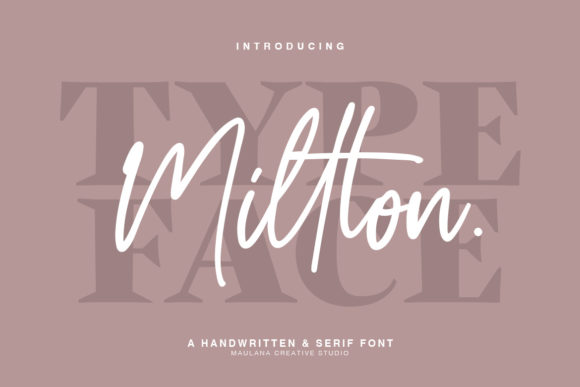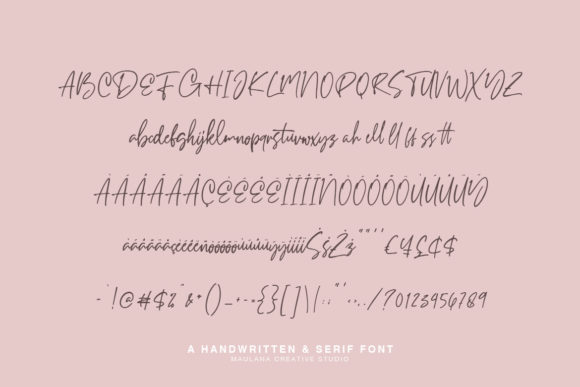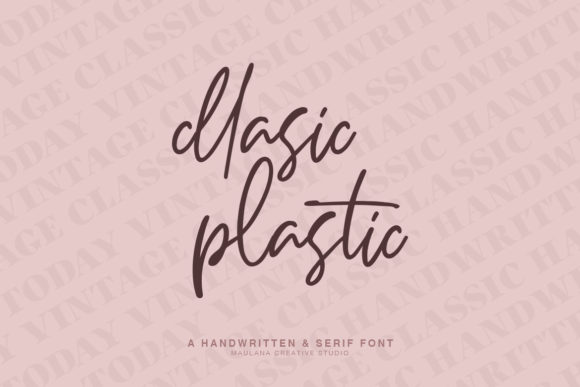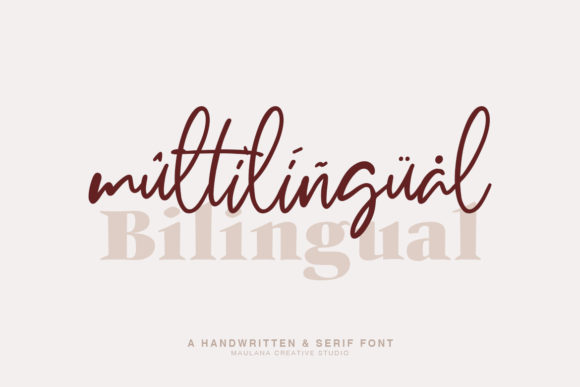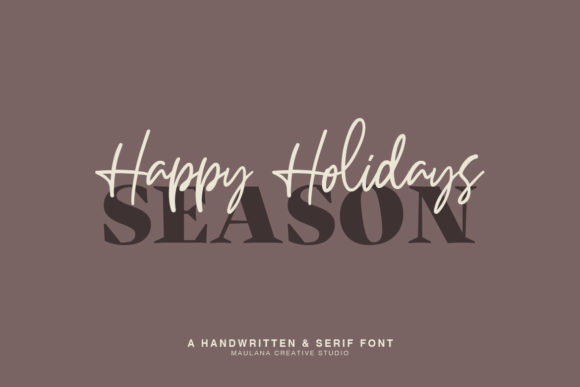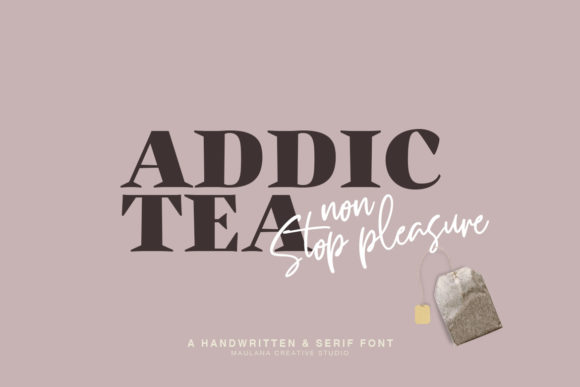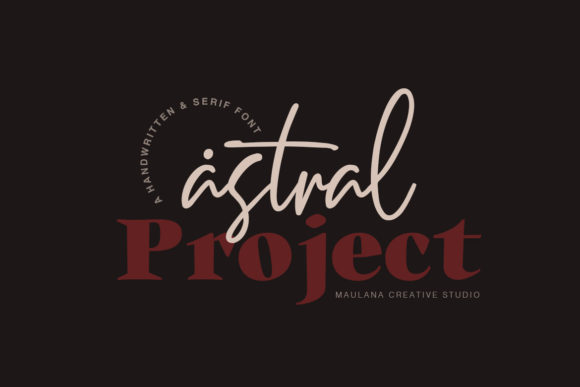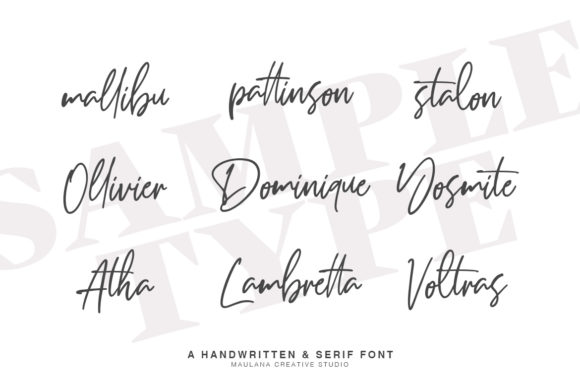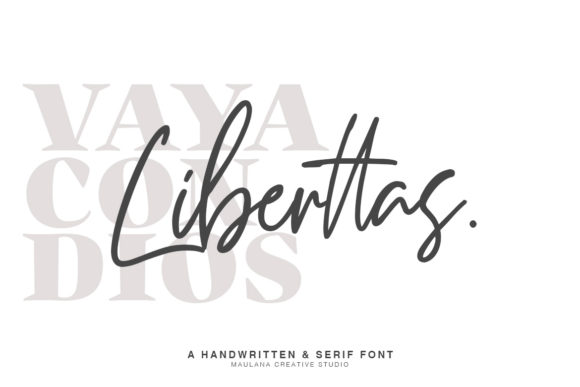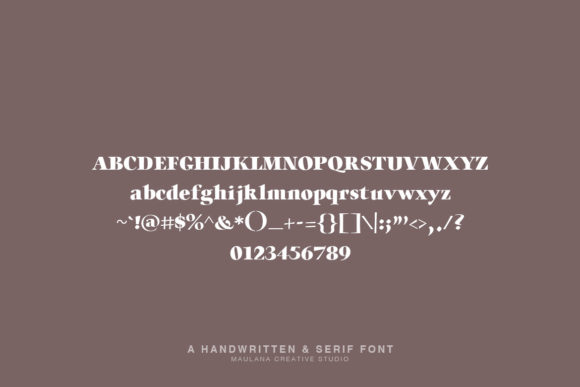
Millton Duo Font
Millton is a gorgeous font duo featuring a calligraphic manuscript and a stunning sans-serif font. Combine these magical fonts and achieve gorgeous font results!